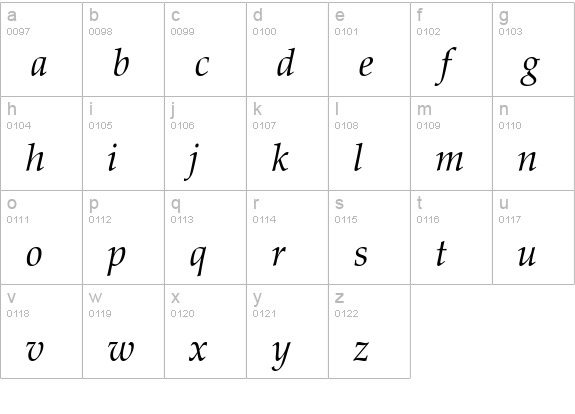
Palladio-Italic Font Details
Palladio-Italic is a distinctive, italic variant in the Palladio typeface family \xE2\x80\x94 well suited to design and typography projects.
Palladio-Italic is a timeless and elegant font that exudes sophistication and grace. With its delicate curves and graceful lines, this font is perfect for adding a touch of class to any project. Whether you're designing a wedding invitation, crafting a logo, or creating a stylish poster, Palladio-Italic is sure to impress. The soft, flowing nature of Palladio-Italic makes it ideal for adding a touch of femininity and refinement to your designs. Its classic and versatile style ensures that it will stand the test of time and remain a favorite for years to come. Best of all, Palladio-Italic is available for free download at FontsMarket.com. So, why wait? Elevate your designs with the timeless beauty of Palladio-Italic today!